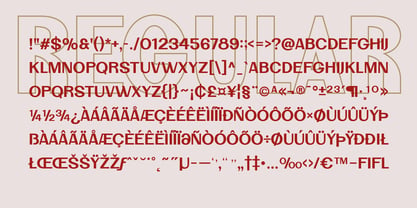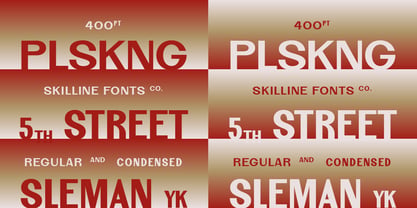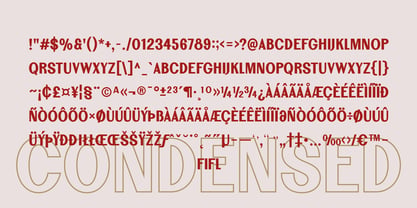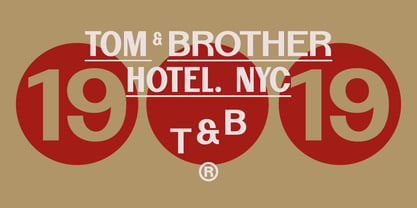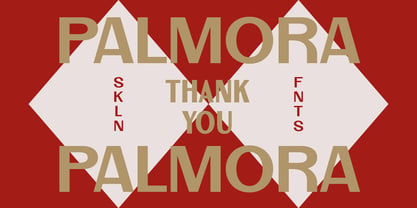
SFC Palmora
by Skilline Fonts Co.
The SFC Palmora Font Family was designed by Ahmad Nur Alfian and published by Skilline Fonts Co.. SFC Palmora contains 2 styles and family package options. More about this family
PALMORA is a clean, vintage-inspired sans serif display typeface that blends mid-century charm with modern clarity. Built with confident strokes and geometric proportions, it brings the spirit of retro packaging, old industrial signage, and classic editorial typography into a refined contemporary form. Its bold presence, tall structure, and minimalistic curves make every word feel intentional, stylish, and unmistakably timeless.
Designed to work beautifully in both Regular and Condensed styles, PALMORA is perfect for creators seeking a polished yet nostalgic aesthetic. Whether you’re crafting branding, packaging, or bold headline compositions, this typeface delivers strong visual impact with effortless versatility.